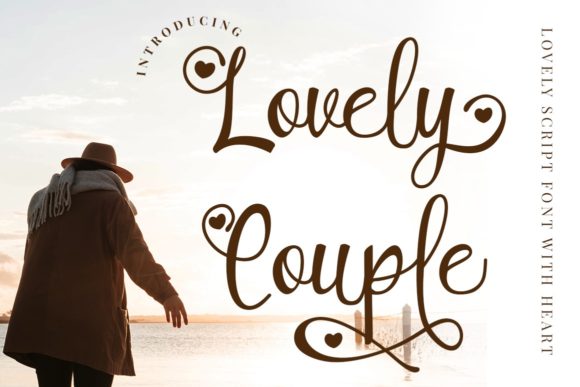
**Unleash the Romance with Lovely Couple Font: A Journey of Love in Every Curve**
In the realm of typography, fonts hold the power to evoke emotions, set the tone, and convey messages with their unique personalities. Among the myriad of font families, the Lovely Couple Font stands out as an exquisite creation, a testament to the beauty of love and romance.
Crafted with meticulous attention to detail, Lovely Couple is a script font that exudes elegance and charm. Its characters, like graceful dancers, sway and twirl along the baseline, creating a visual symphony that captivates the eyes and stirs the heart. Each letterform is infused with a touch of whimsy and playfulness, reminiscent of love's delightful surprises and tender moments.
With its flowing curves and delicate strokes, Lovely Couple Font possesses an inherent romantic quality, making it the perfect choice for wedding invitations, save-the-dates, and other love-themed projects. The font's versatility, however, extends far beyond the realm of matrimony. Its charm can enhance logos, branding materials, headings, t-shirts, letterheads, signage, labels, news, posters, badges, and countless other creative endeavors.
Whether you're a seasoned designer seeking to add a touch of romance to your work or a creative enthusiast looking to express your passion, Lovely Couple Font is your perfect companion. It's a font that speaks to the heart, transforming ordinary words into expressions of love, joy, and heartfelt emotions.
**Immerse Yourself in a World of Creative Possibilities with Lovely Couple Font:**
- **Wedding Invitations:** Create breathtaking wedding invitations that capture the essence of your love story. Lovely Couple Font's elegant curves and romantic flair will add a touch of magic to your special day.
- **Logos and Branding:** Elevate your brand's identity with a logo that exudes sophistication and romance. Lovely Couple Font's unique style will set your brand apart and leave a lasting impression on your audience.
- **Headings and Titles:** Make your headings and titles stand out with Lovely Couple Font's captivating charm. Its graceful letters will draw readers' attention and create a sense of intrigue and anticipation.
- **T-shirts and Apparel:** Design eye-catching t-shirts, sweatshirts, and other apparel items that spread love and positivity. Lovely Couple Font's playful and romantic vibe will resonate with fashion-forward individuals seeking unique and meaningful expressions.
- **Letterhead and Stationery:** Create a cohesive and professional brand image with custom letterhead and stationery featuring Lovely Couple Font. Your correspondence will exude elegance and leave a lasting impression on clients and partners.
- **Signage and Labels:** Design captivating signage and labels that grab attention and convey your message with style. Lovely Couple Font's distinct character will make your products and services stand out from the crowd.
- **Newsletters and Posters:** Create visually appealing newsletters and posters that capture readers' attention and deliver your message with impact. Lovely Couple Font's charm will add a touch of warmth and personality to your communications.
- **Badges and Social Media Graphics:** Design eye-catching badges and social media graphics that reflect your brand's personality and engage your audience. Lovely Couple Font's romantic flair will add a touch of charm to your online presence.